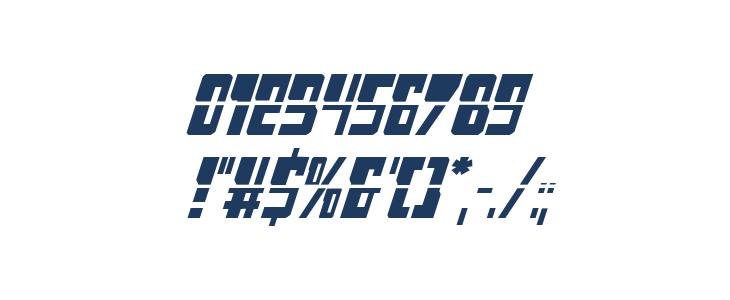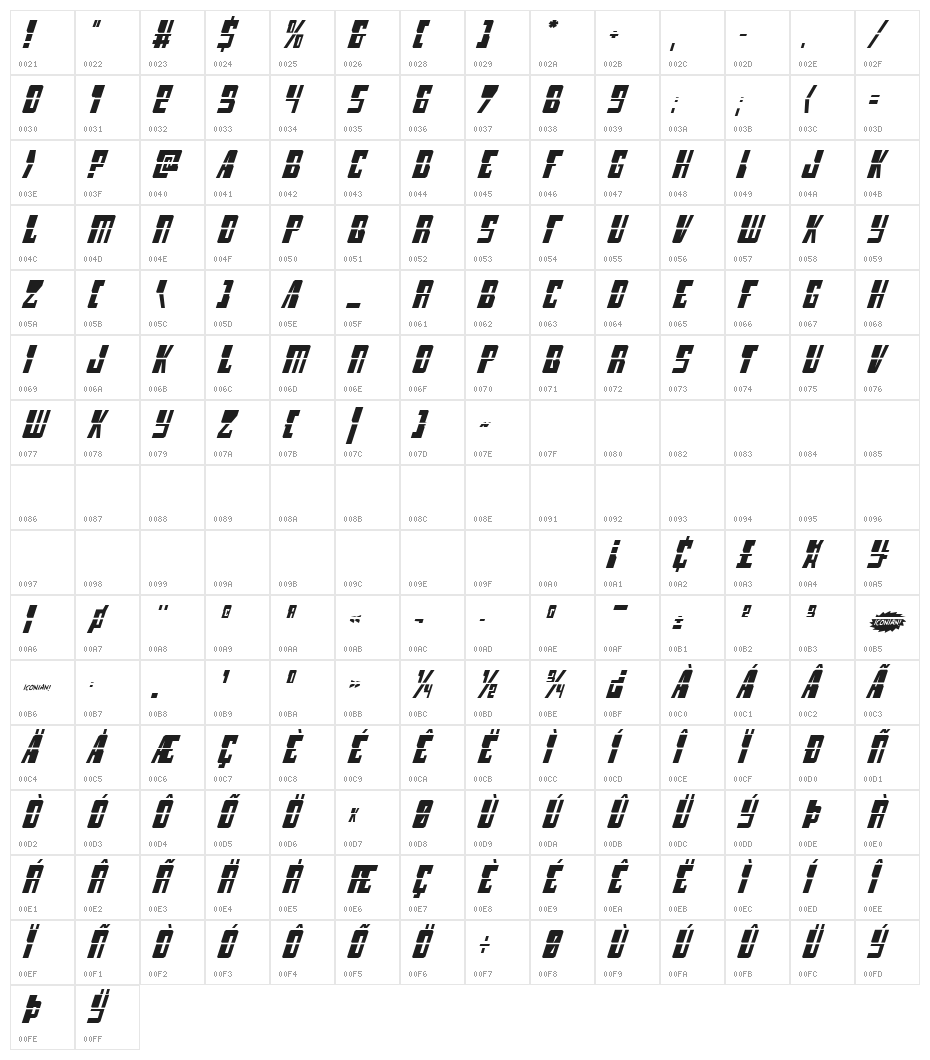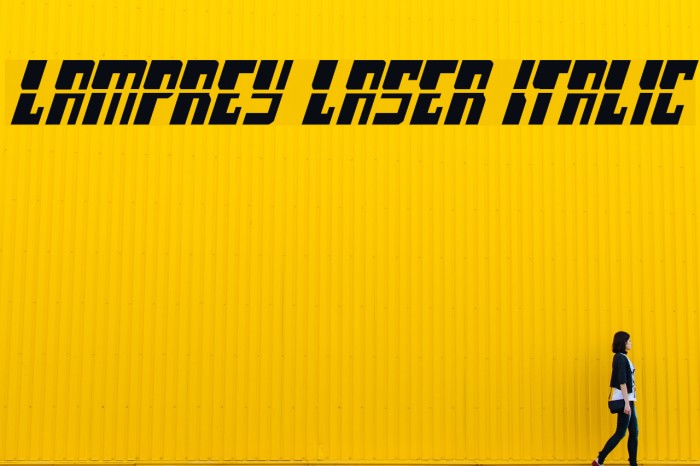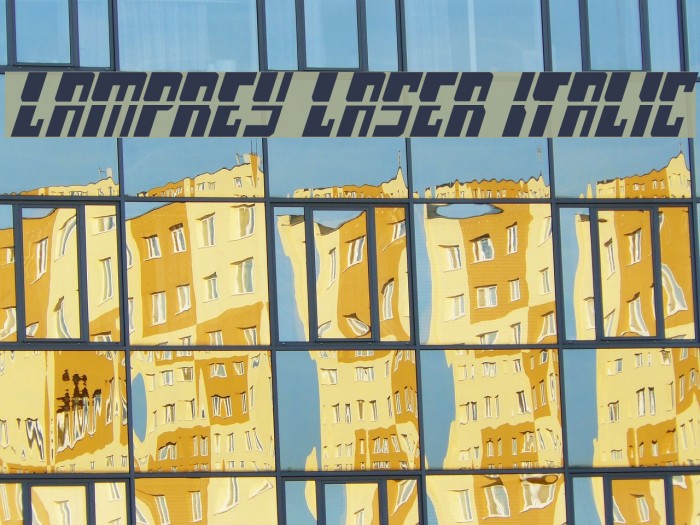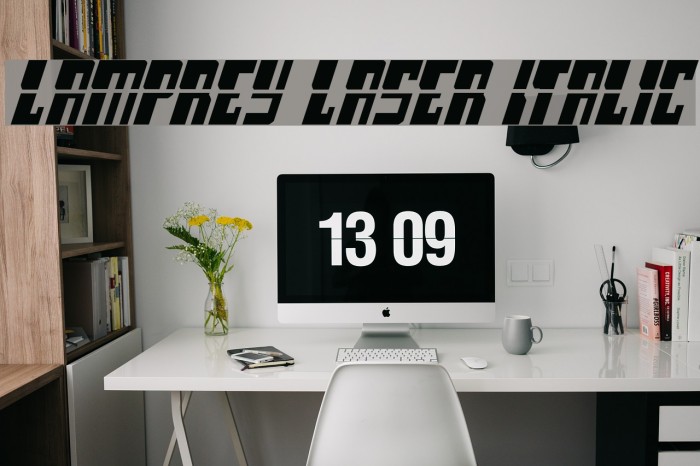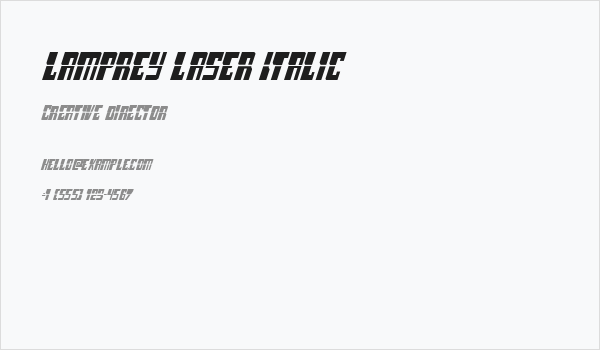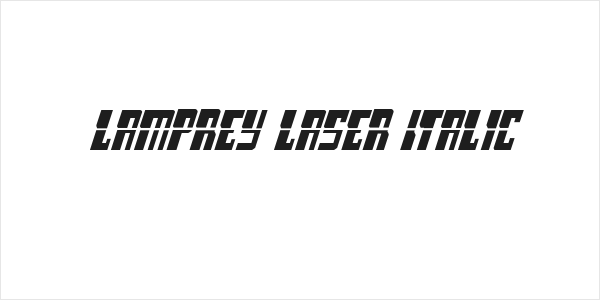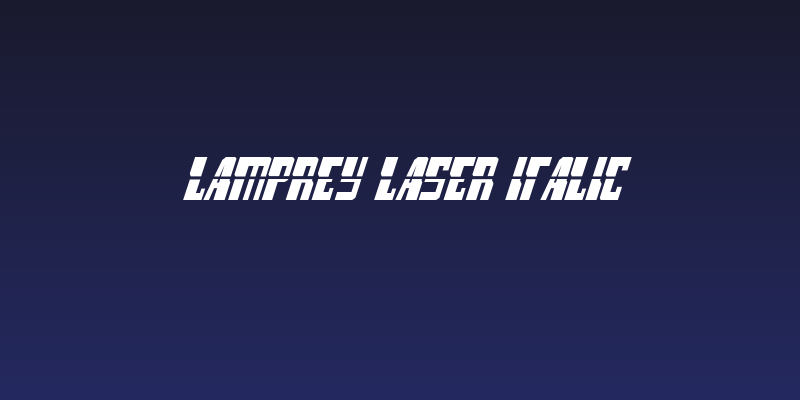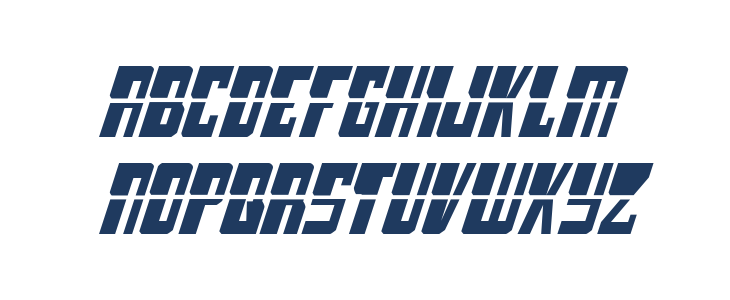
Lamprey Laser Italic Font
Lamprey Laser Italic Description
This font features a bold and dynamic design with a futuristic flair. The characters are sharply angled, giving a sense of speed and movement. The italic style enhances this effect, making it ideal for projects that require a modern and edgy look. The uppercase and lowercase letters maintain a consistent style, with a slight slant that adds to the overall sleek appearance. The numbers and special characters are designed to match the boldness of the letters, ensuring a cohesive look across all text elements. The font's unique style makes it stand out, perfect for attention-grabbing headlines or branding materials.
| Proposed Projects | Ideal for sci-fi themed projects, technology branding, sports team logos, or any design that requires a modern and energetic feel. |